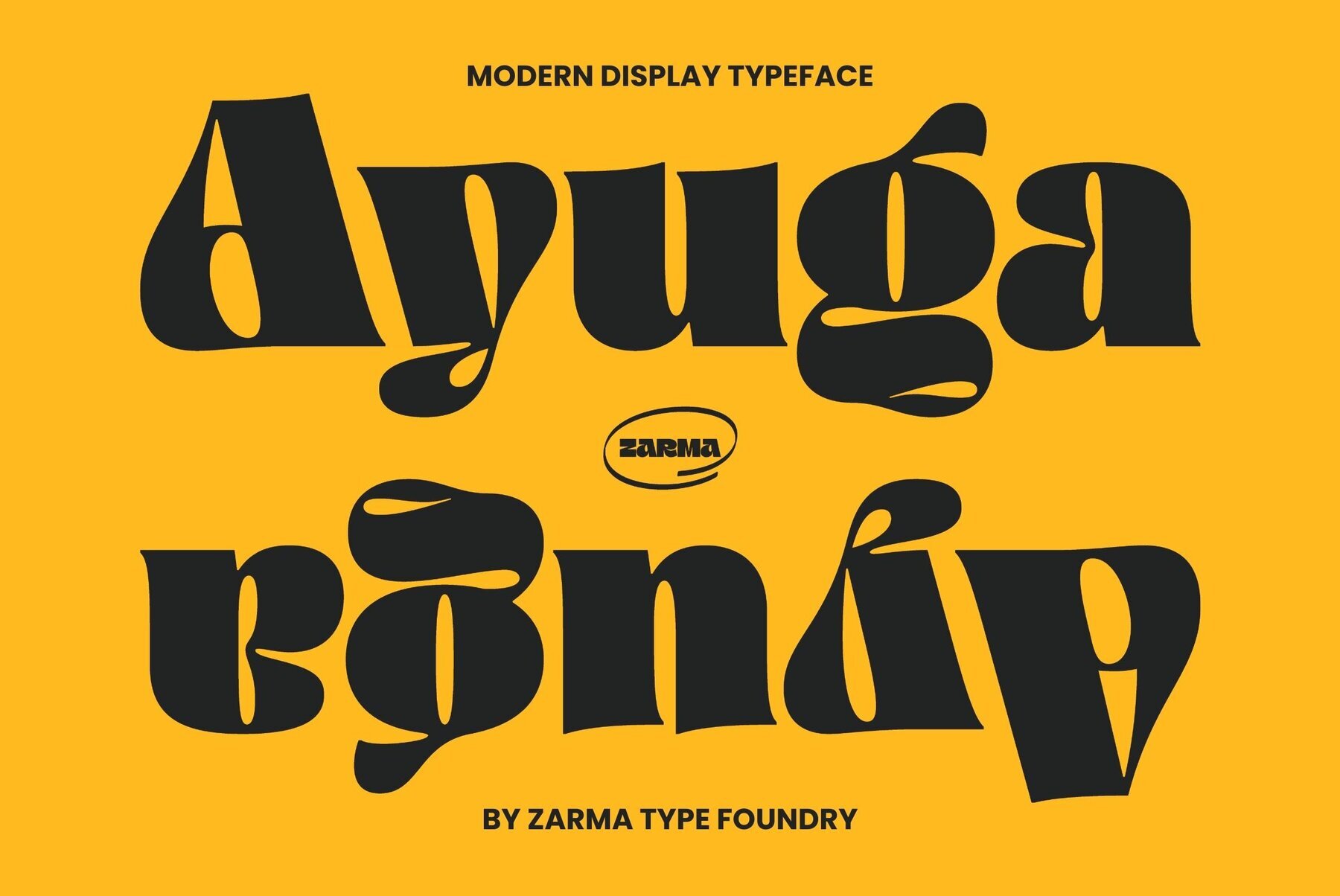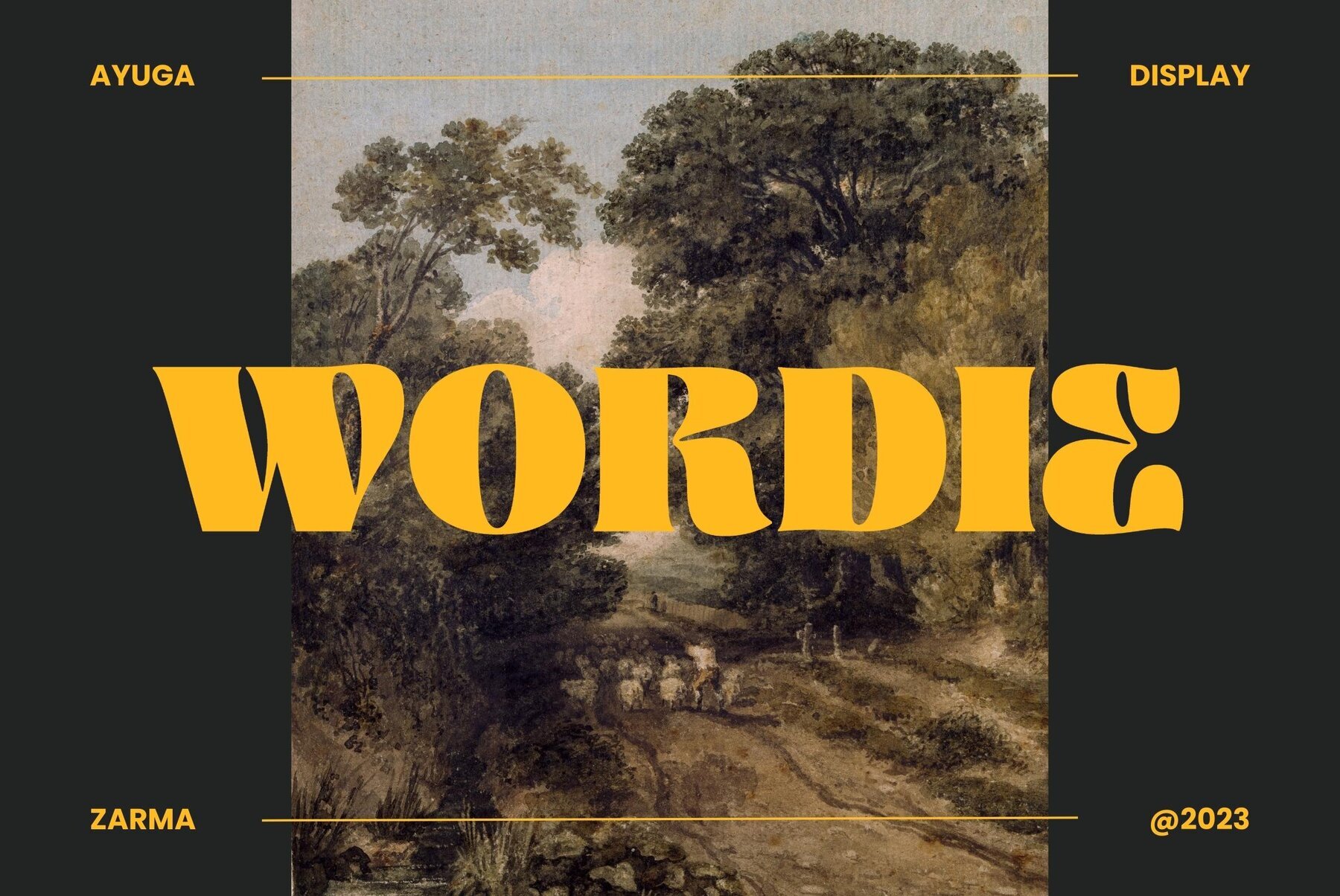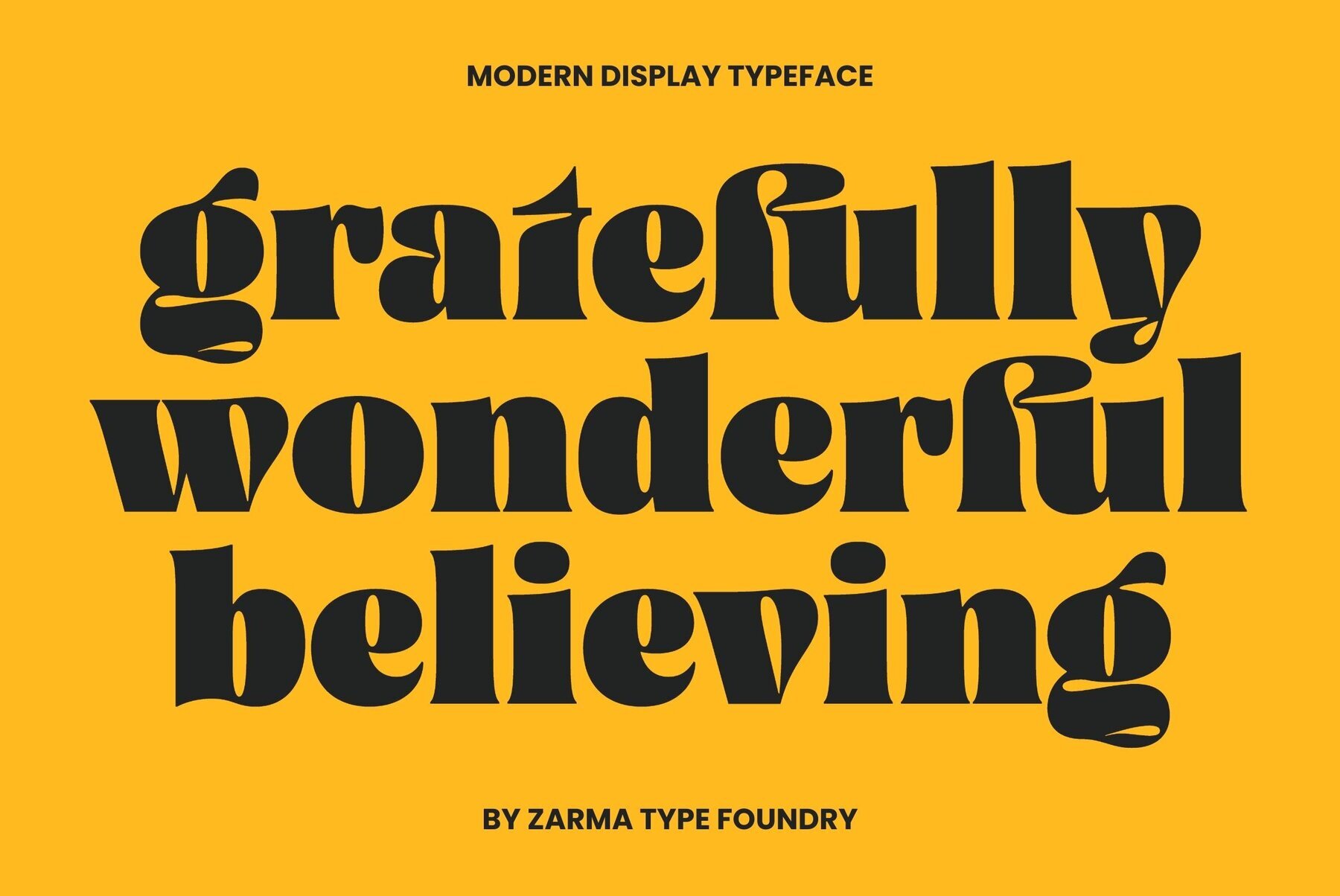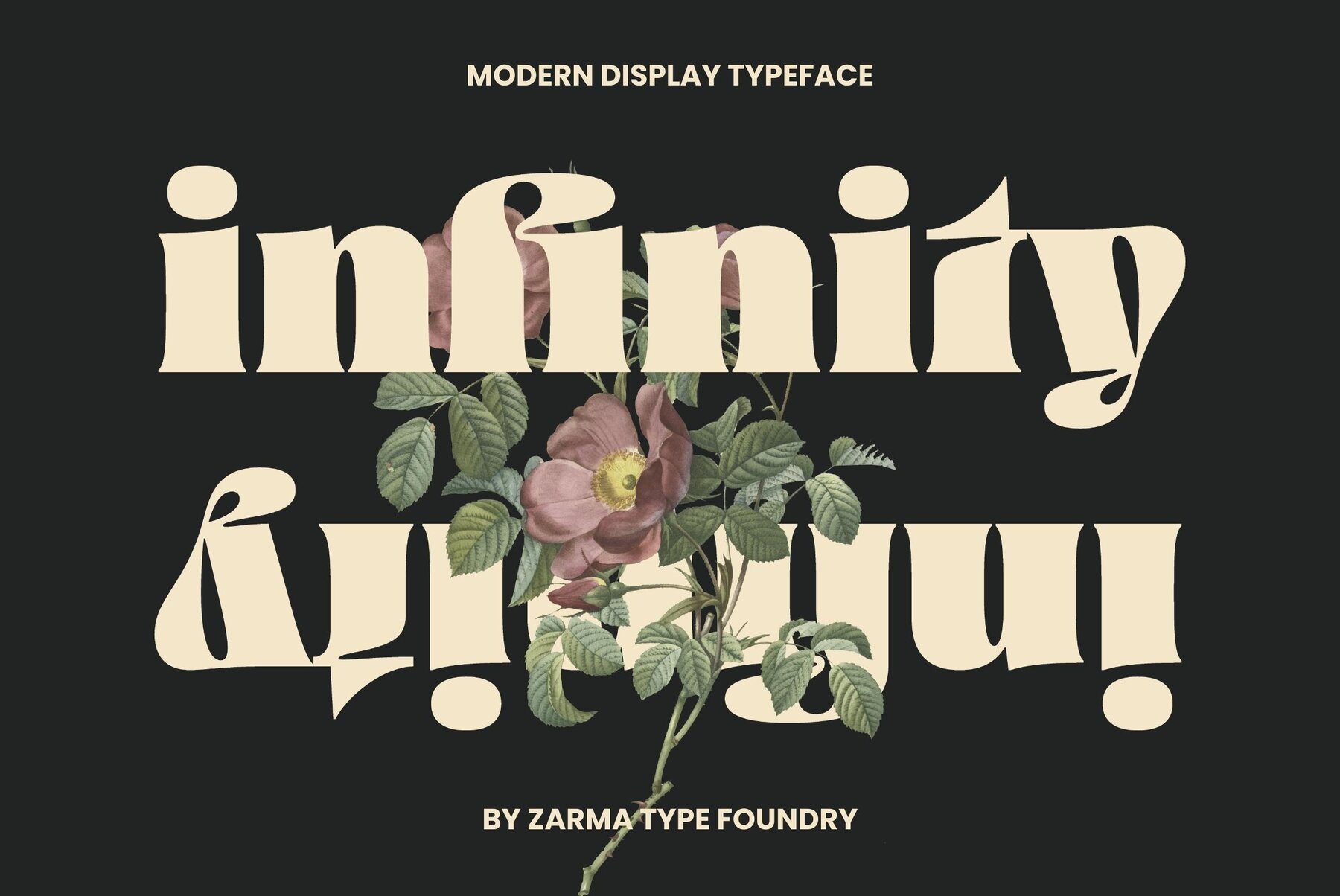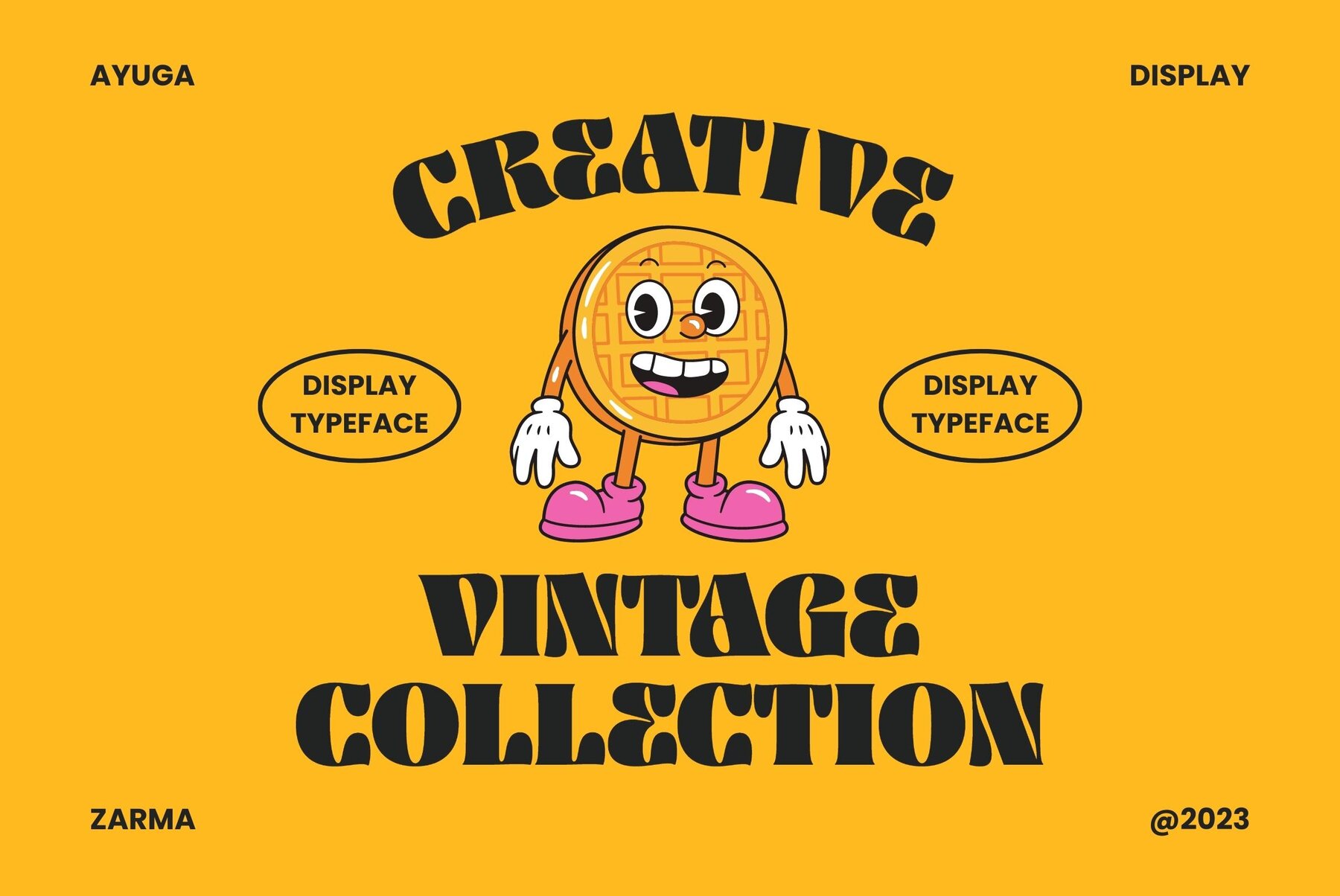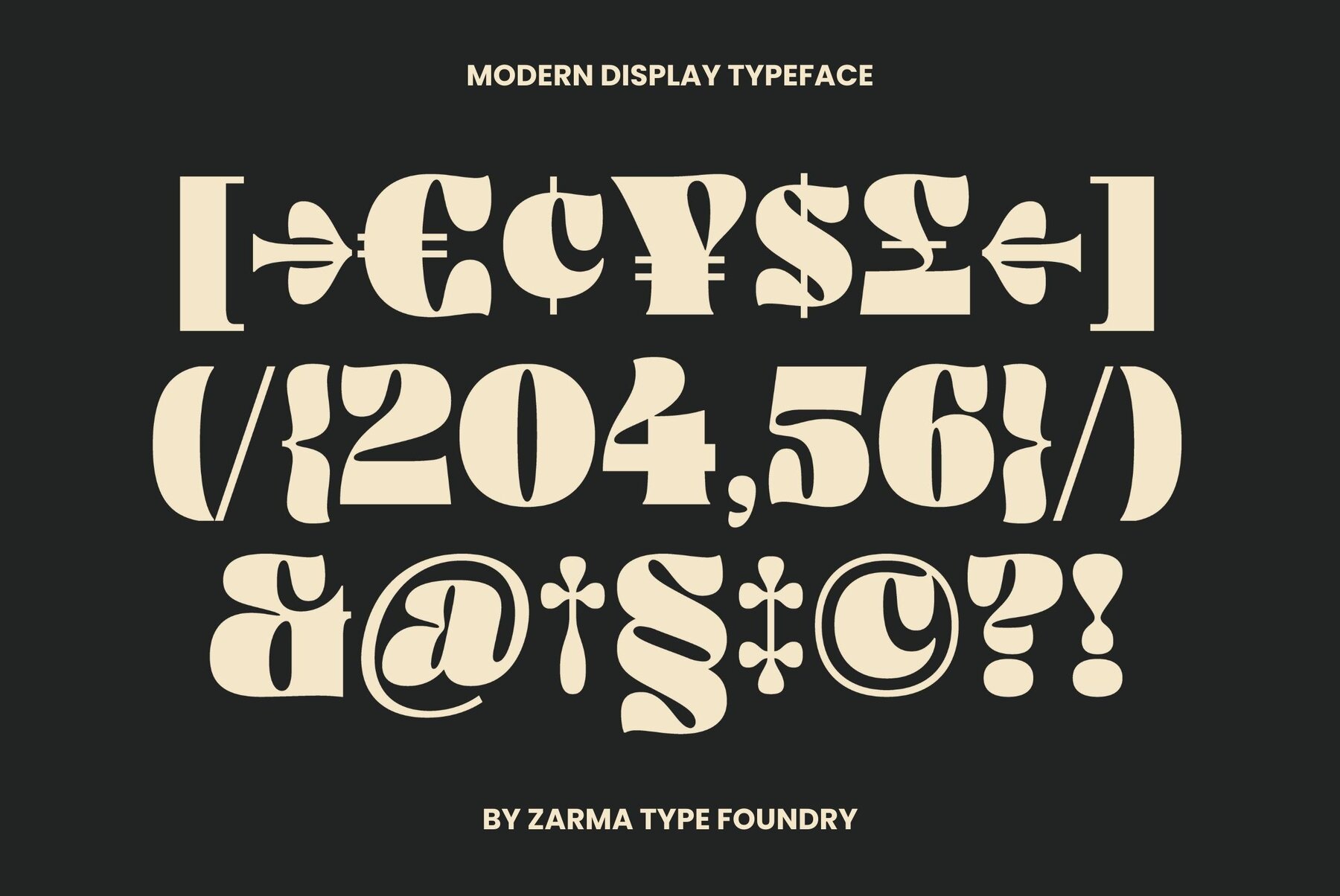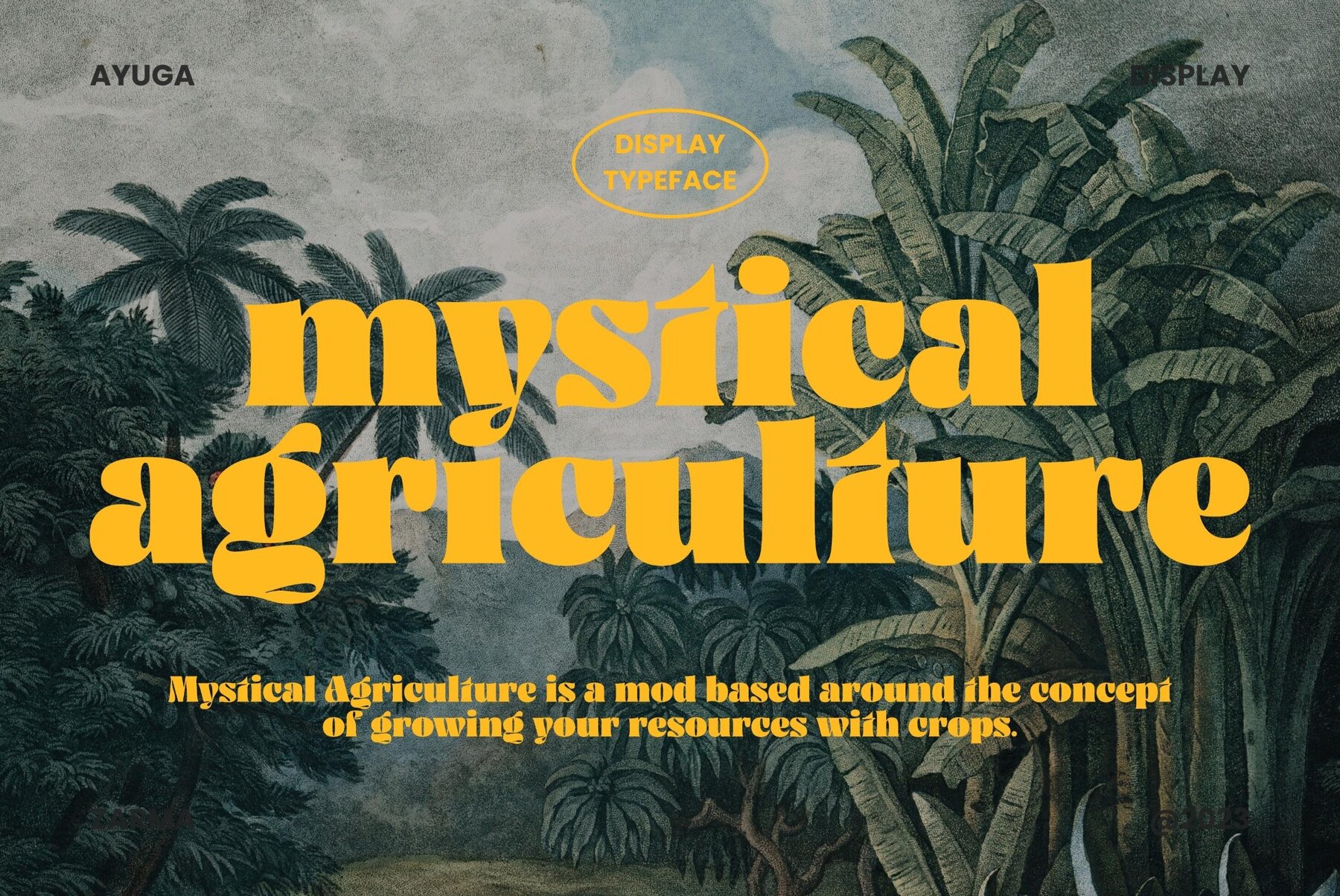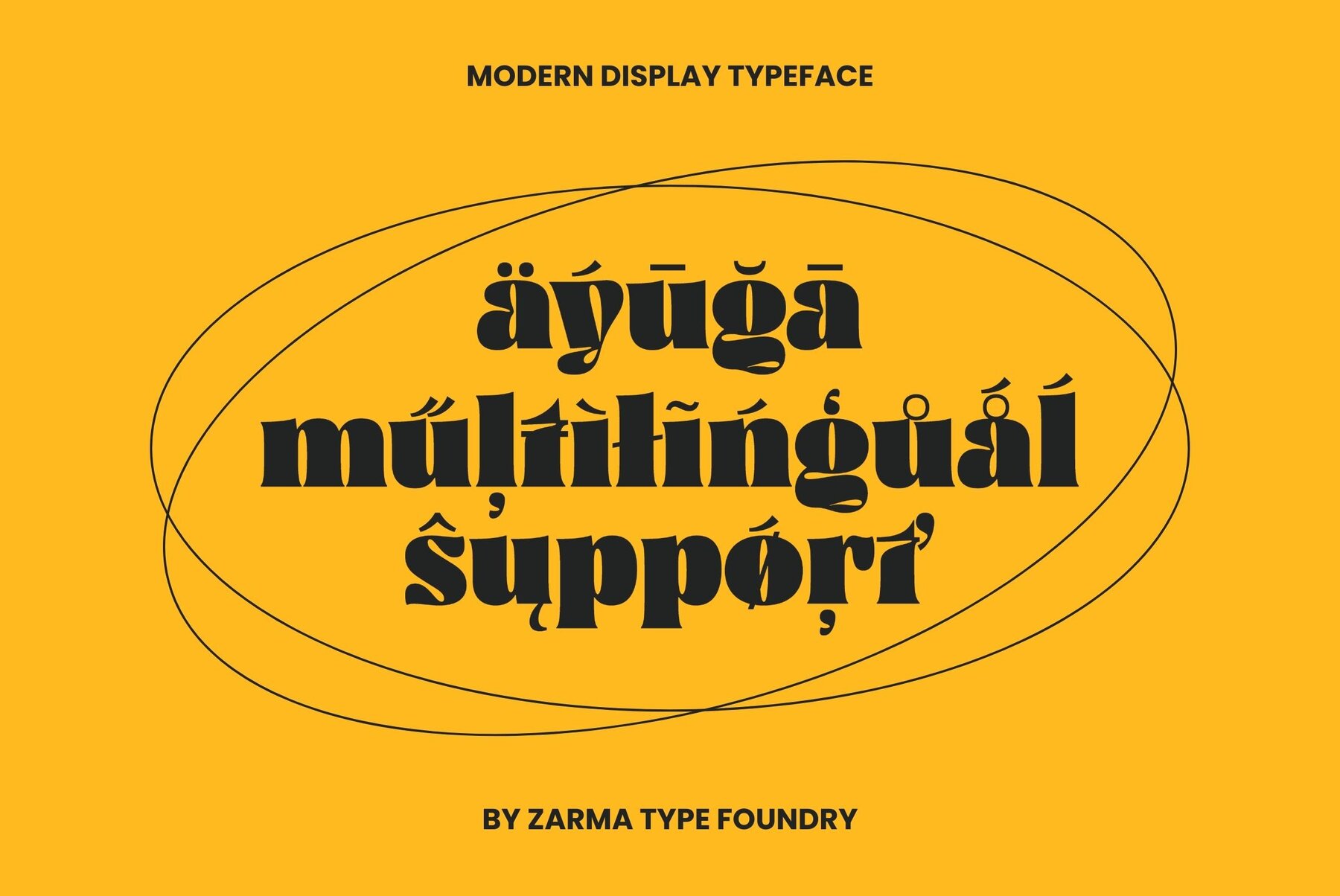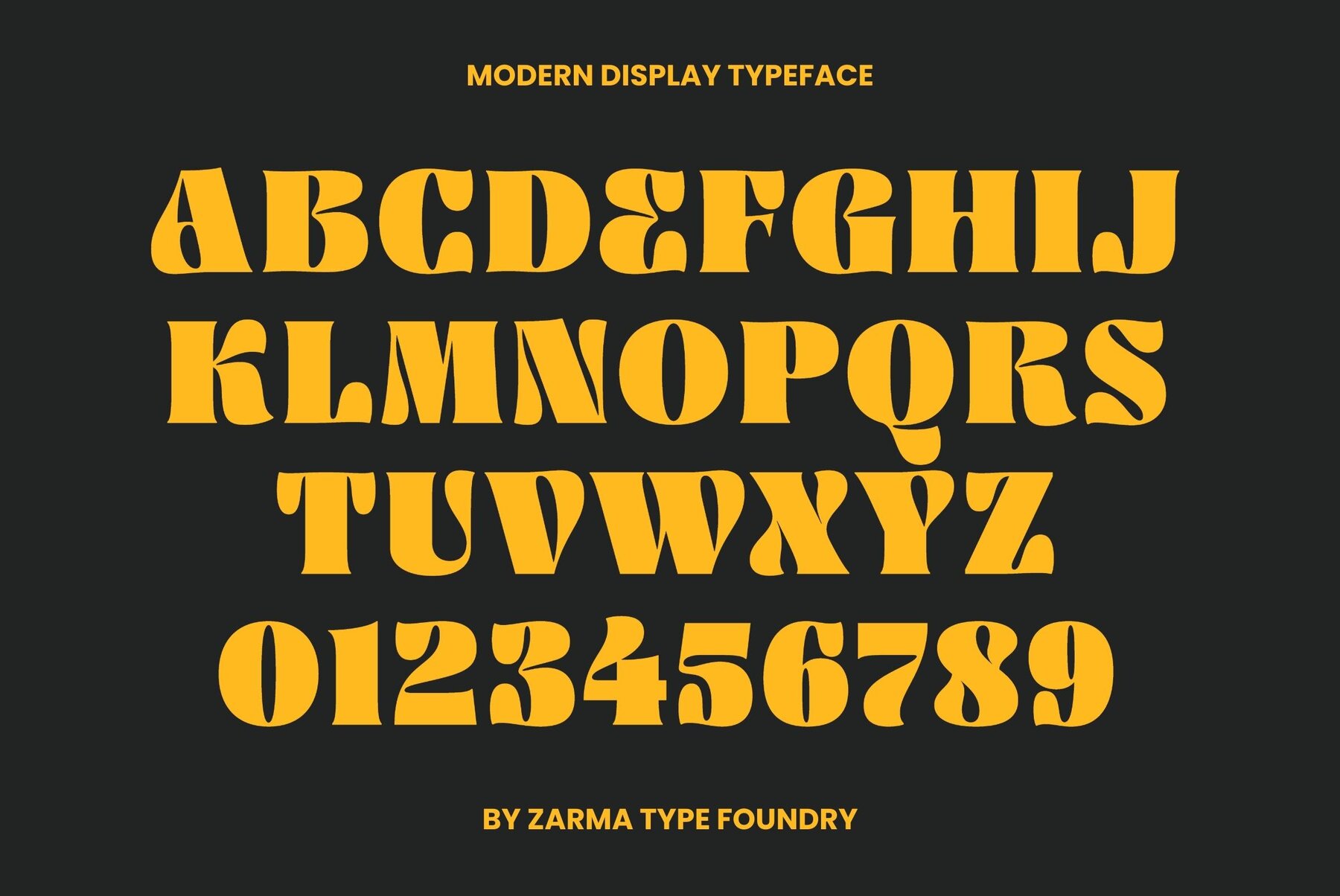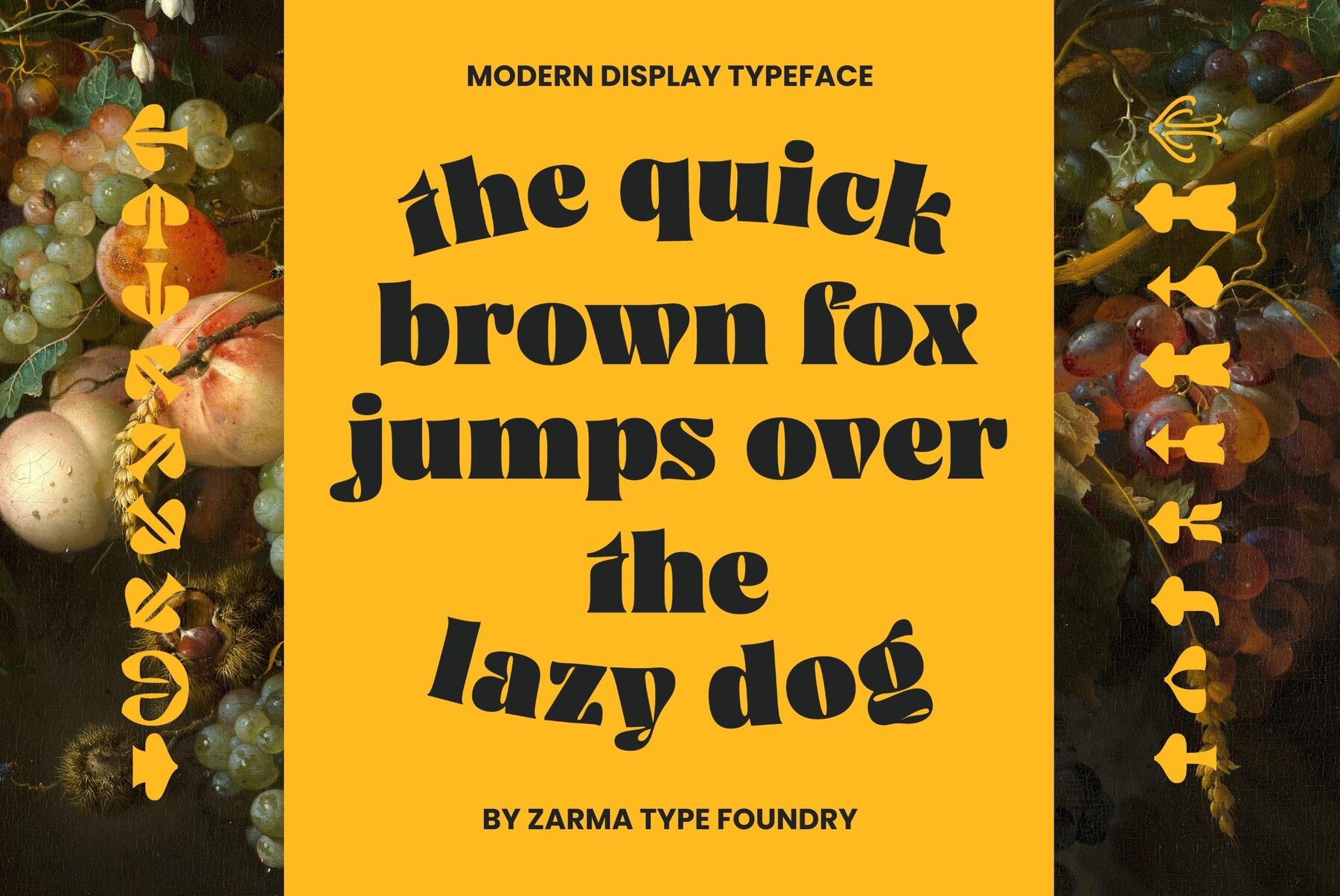
Ayuga Font
Ayuga Regular
Ayuga, inspired by retro and psychedelic typography, presents a bold and thick letterform that ensures any design captures attention. This display typeface is meticulously crafted to bring a vibrant, nostalgic flair while retaining modern usability, making it ideal for standout displays and creative projects.Ayuga: Bold Display Font with Retro Charm